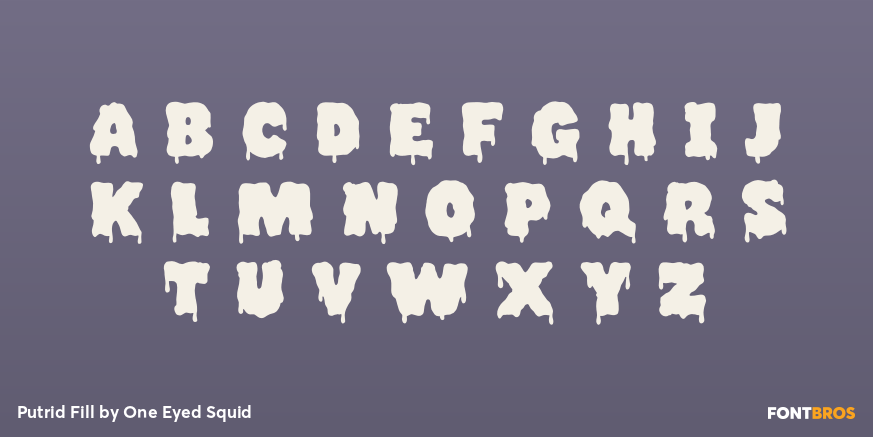
Putrid Fill
Font Style by One Eyed Squid
It's snot just your average fetid, festering font! Putrid is piled high with pus, brimming with bile, and dripping with decomposing dribbles.
This is the Putrid-Fill font, vaguely reminiscent of the Rocky Horror Picture Show, but just a cool drippy typestyle as-is.
(Putrid-Fill contains an extended Latin character set with added Vietnamese support.)